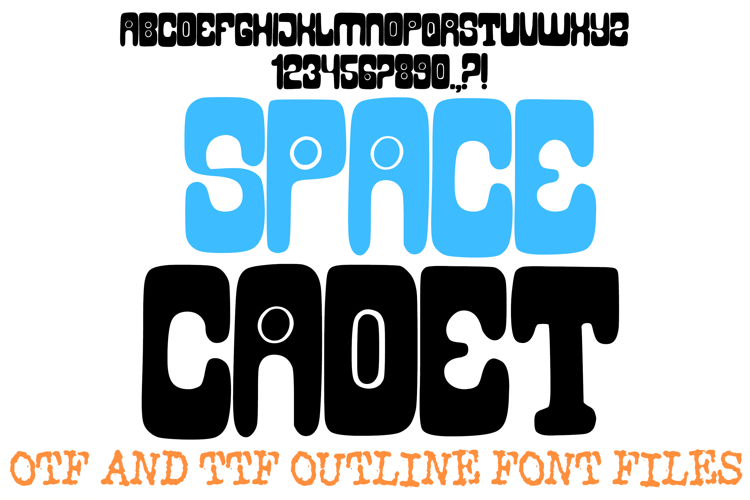
The Space Cadet Font is a bold, retro-futuristic display typeface that masterfully blends 1970s groovy curves with a nostalgic, space-age arcade aesthetic. Characterized by its heavy, blocky silhouettes, bottom-heavy proportions, and distinct pill-shaped or circular negative space cutouts, this font brings an adventurous yet playful cosmic vibe to any project. It is an exceptional resource for designers working on retro sci-fi comic book headings, vintage arcade gaming stream overlays, kids' space camp branding, whimsical pop art posters, and alternative streetwear apparel.
The design features tight, uniform horizontal spacing and rounded outer corners, giving words a compact, solid graphic weight that jumps off the page. The unusual geometric cutouts inside the character counters beautifully mimic the control panels and button layouts of mid-century technical consoles. Whether you are crafting a standout header for a tech vlog, creating custom vinyl decals, or building a brand identity for a playful modern toy line, this font infuses your work with an unmistakable vintage interstellar charm.
Retro Space-Age Architecture: Perfectly channels the bold, imaginative styling of vintage sci-fi media and classic 1970s pop typography.
Distinct Pill-Shape Cutouts: Elongated oval and circular negative spaces act as built-in design accents, giving the letters a unique electronic hardware look.
Massive Display Block Weight: Ultra-thick, dominant silhouettes provide maximum visibility, making it highly effective for prominent title cards and merchandise logos.
Compact Layout Rhythm: The tight, interlocking nature of the character blocks creates a unified, cohesive text graphic that anchors your layout.